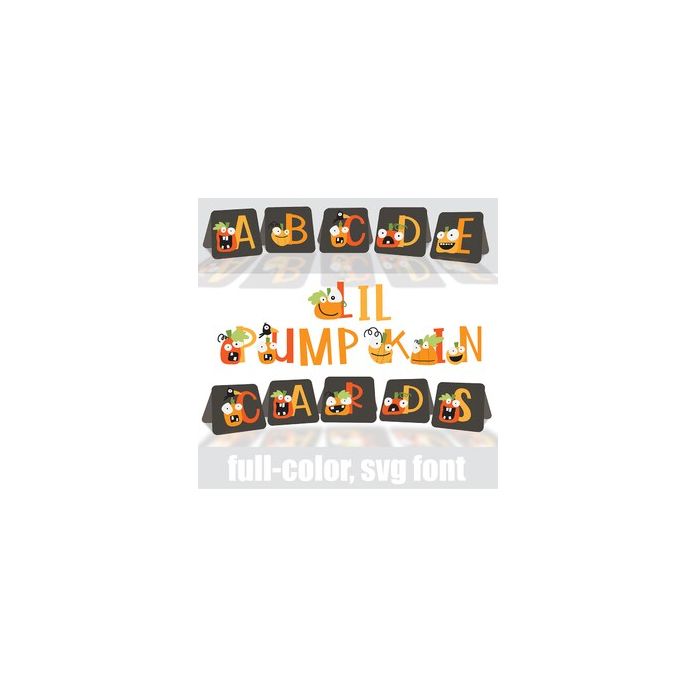
This full color font features orange letters and jack-o-lanterns on square cards. Simply print and fold in half for colorful alphabet cards. There is an alt case w/ additional colors you can access through your system or Silhouette's glyph map.